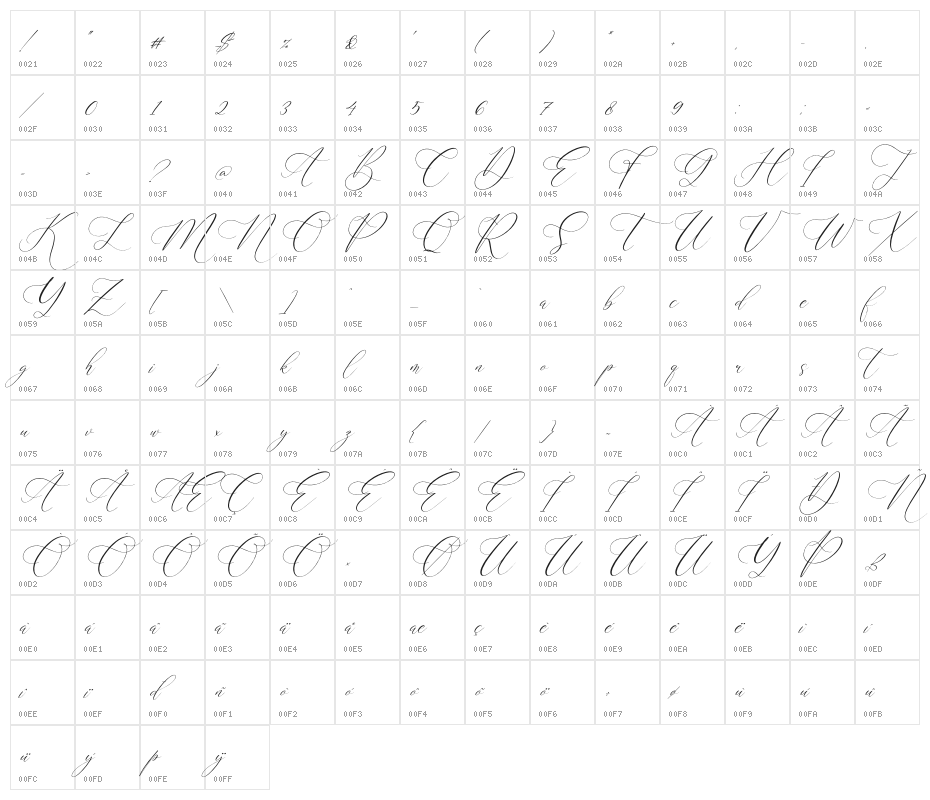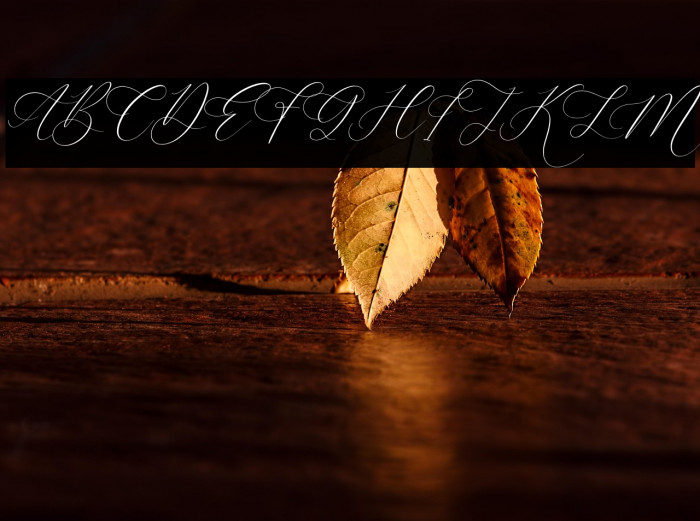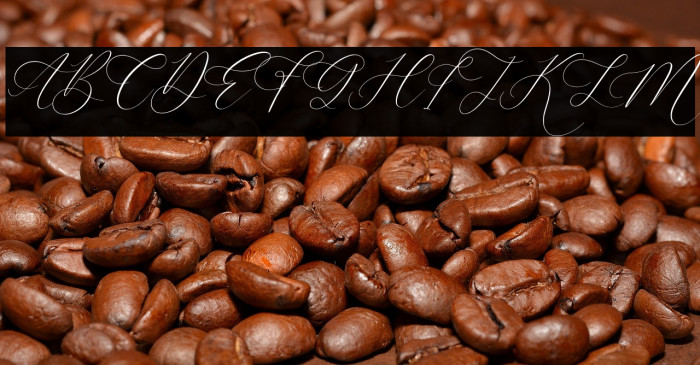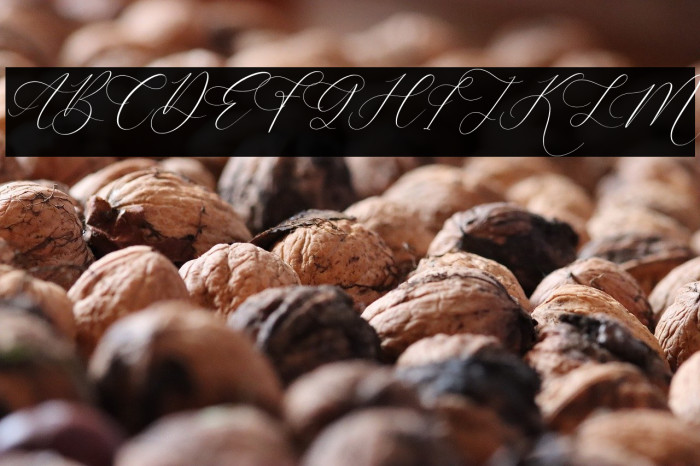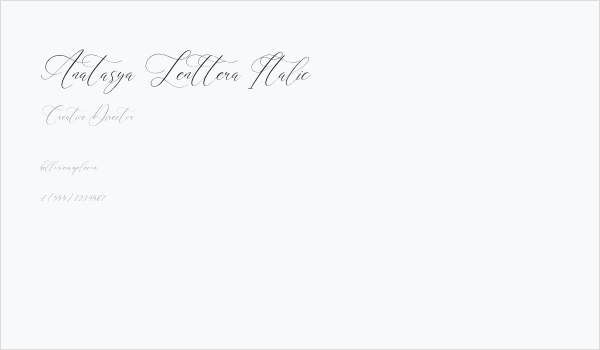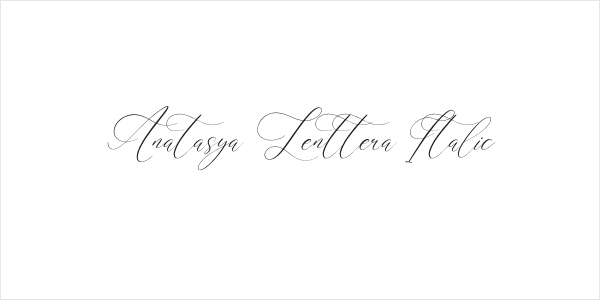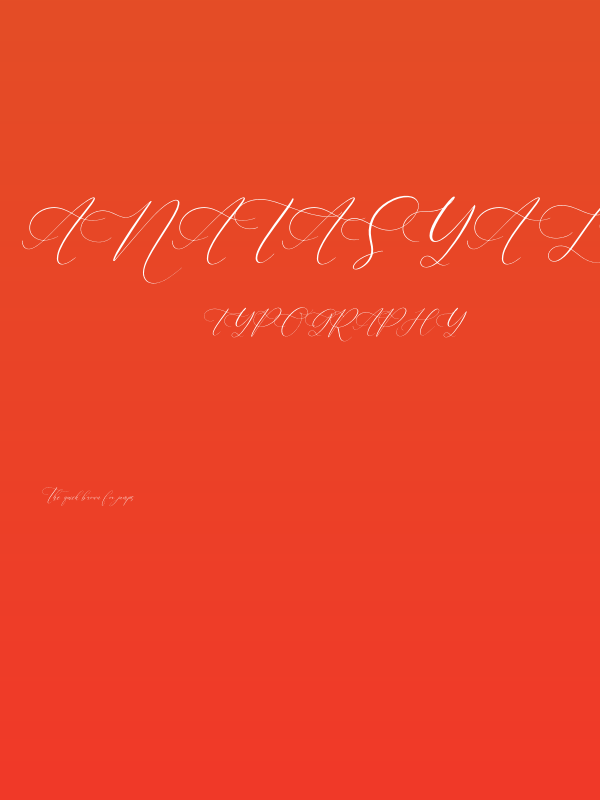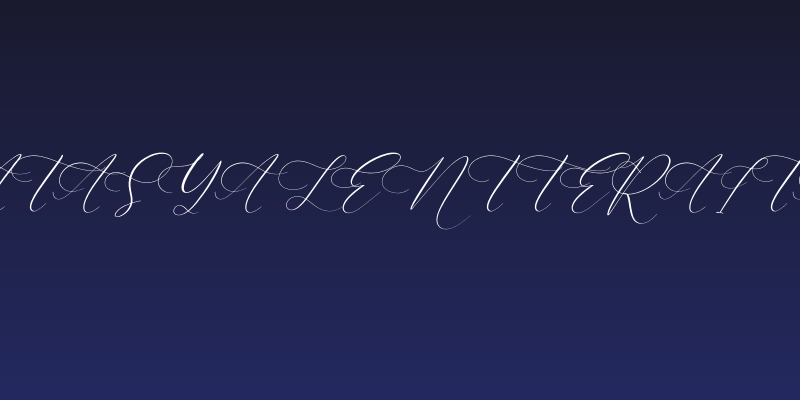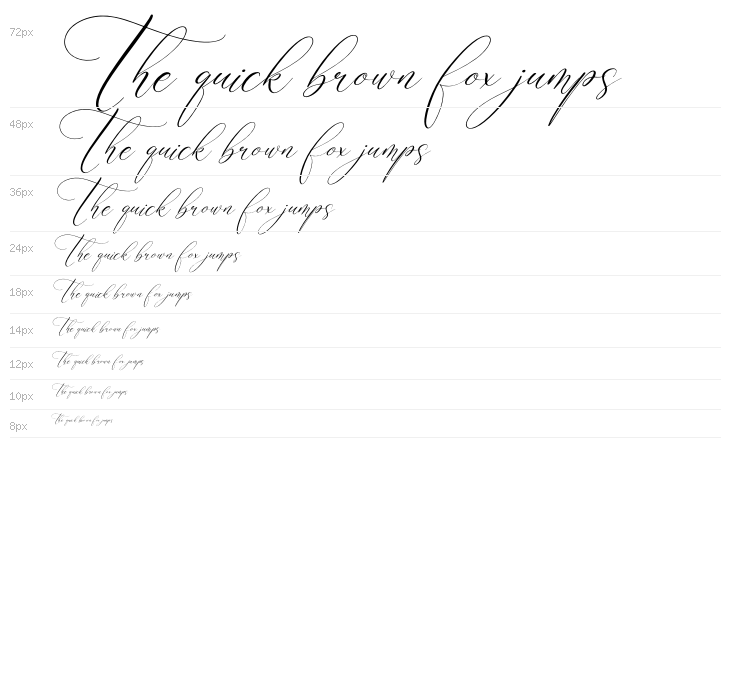
Anatasya Lenttera Italic Font
Anatasya Lenttera Italic Description
This elegant script font features flowing, interconnected letters with a refined and sophisticated appearance. The characters are designed with graceful curves and delicate strokes, giving it a luxurious and artistic feel. The uppercase letters are particularly ornate, with intricate loops and flourishes that add a touch of grandeur. The lowercase letters maintain a consistent style, offering a seamless blend between characters. The numerals and special characters are crafted to match the overall aesthetic, ensuring a cohesive look across all text. This font is perfect for adding a touch of elegance and class to any design project.
| Overall Style | Elegant, Artistic |
| Proposed Projects | Ideal for wedding invitations, luxury branding, elegant stationery, and artistic projects. |